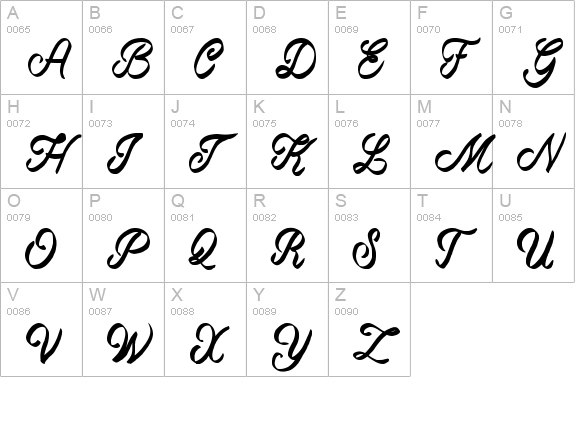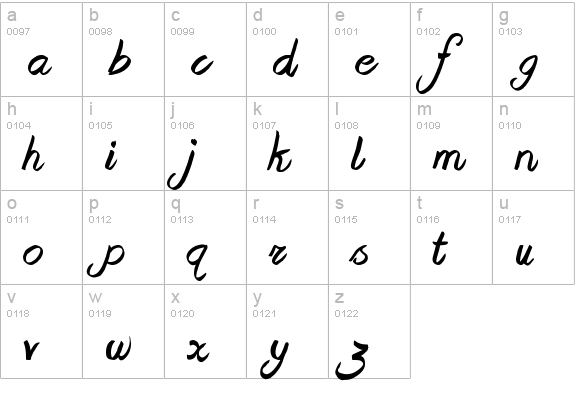
Beast of Avalon Font Details
Introducing the captivating Beast of Avalon font, a mesmerizing typeface that effortlessly combines elegance and power. This font is a true embodiment of strength and beauty, with its bold, yet sophisticated letterforms that command attention and leave a lasting impression. Beast of Avalon is a unique creation that effortlessly captures the essence of mythical creatures and ancient legends. Its intricate details and carefully crafted curves make it a stunning choice for any project that seeks to evoke a sense of mystery and grandeur. What makes Beast of Avalon even more remarkable is that it is available for free! Yes, you read that right. This extraordinary font can be freely downloaded at FontsMarket.com, allowing designers, artists, and enthusiasts alike to add a touch of enchantment to their creations without breaking the bank. Whether you're designing a logo for a fantasy novel, creating eye-catching headlines for a magazine, or adding a touch of elegance to invitations or posters, Beast of Avalon is the perfect choice. Its versatile nature and wide range of characters make it suitable for both display and text use. With Beast of Avalon, you have the power to unleash your creativity and transport your audience to a world of magic and wonder. So why wait? Head over to FontsMarket.com and download this extraordinary font today, for it's not every day that you come across a font of such beauty and quality, freely available for all to enjoy. Let Beast of Avalon be your gateway to a realm of limitless possibilities.